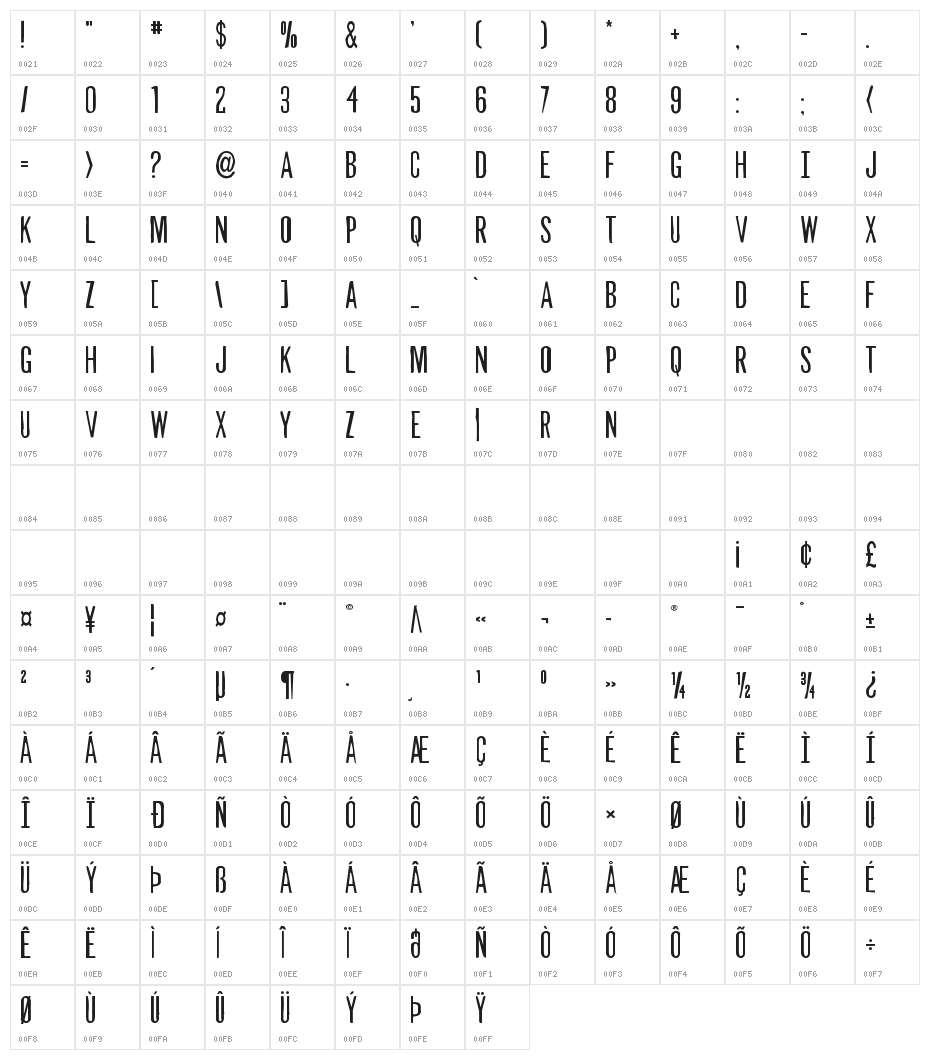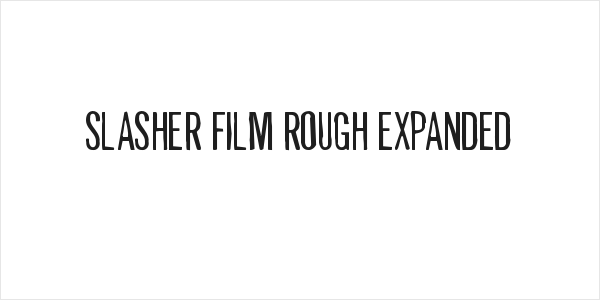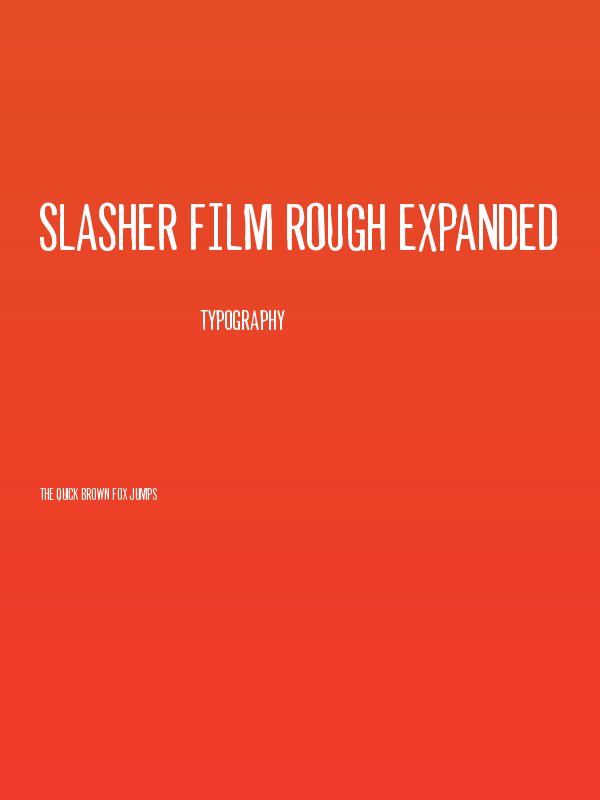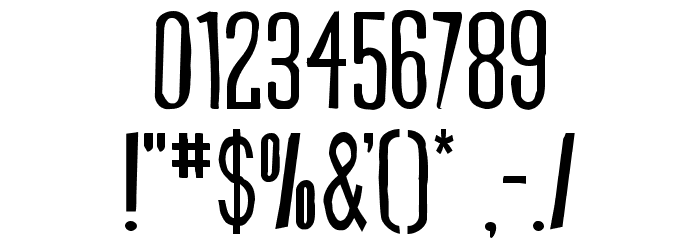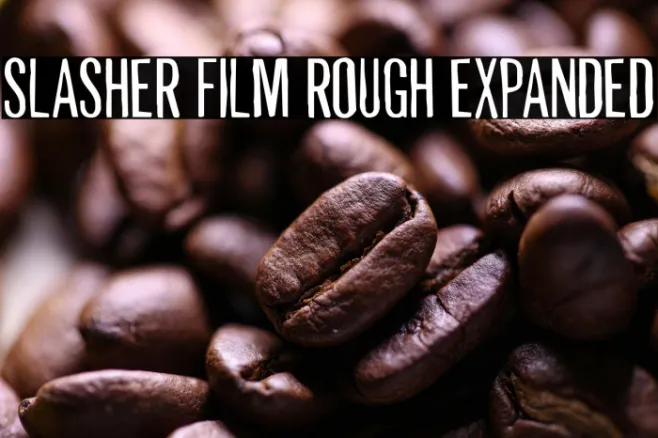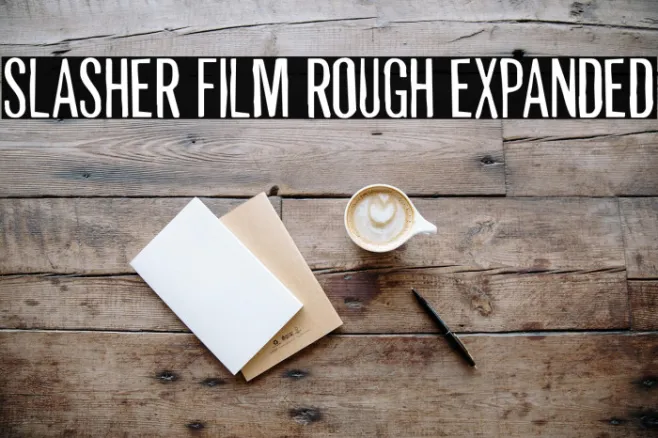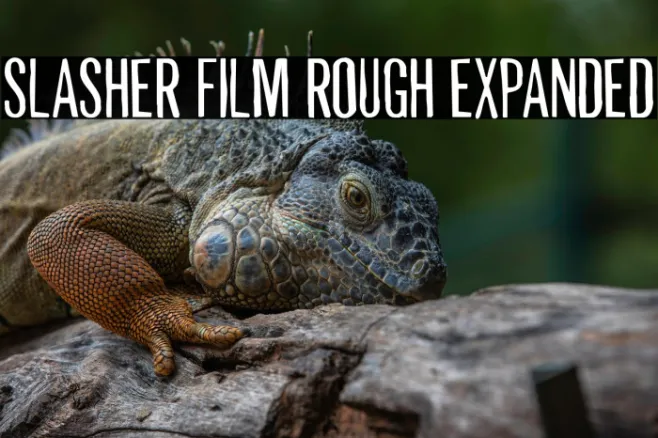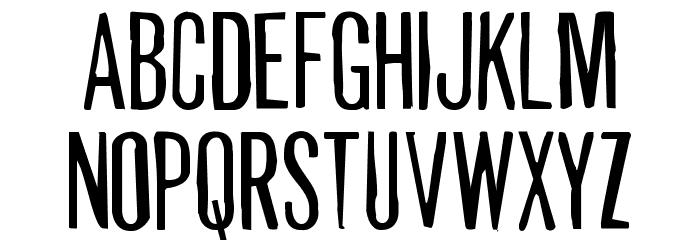
Slasher Film Rough Expanded Font
Slasher Film Rough Expanded Description
This font exhibits a bold and rugged style, characterized by its rough, hand-drawn appearance. The letters are tall and narrow, with uneven edges that give a distressed, vintage feel. The uppercase and lowercase characters maintain a consistent height, enhancing the font's uniformity despite its rough texture. Numbers and special characters follow the same design principles, ensuring a cohesive look across all glyphs. The font's unique style makes it ideal for projects that require a dramatic and edgy aesthetic, such as horror-themed designs or retro-inspired artwork.
| Overall Style | Vintage, Decorative |
| Use Case | Headlines, Posters, Branding |
| Proposed Projects | Ideal for horror-themed designs, retro posters, edgy branding, and dramatic headlines. |